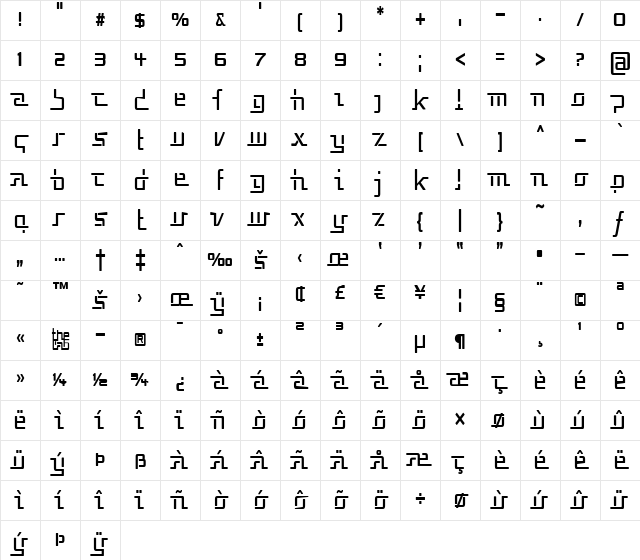
Republika V Cnd Regular
Designer: Apostrophe
Design Context for Republika V Cnd
Republika V Cnd is a composed and adaptable typeface that performs quietly and consistently across a wide range of design contexts.
Pro Tip: Use Republika V Cnd in both headline and body roles to test its range before committing to a single application.